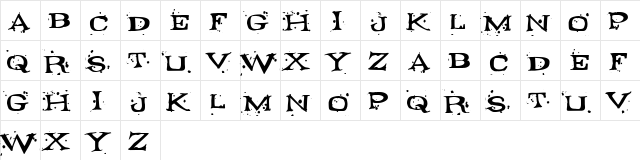
Fontocide Regular
Design Context for Fontocide Typeface
Fontocide is a composed and adaptable typeface that performs quietly and consistently across a wide range of design contexts.